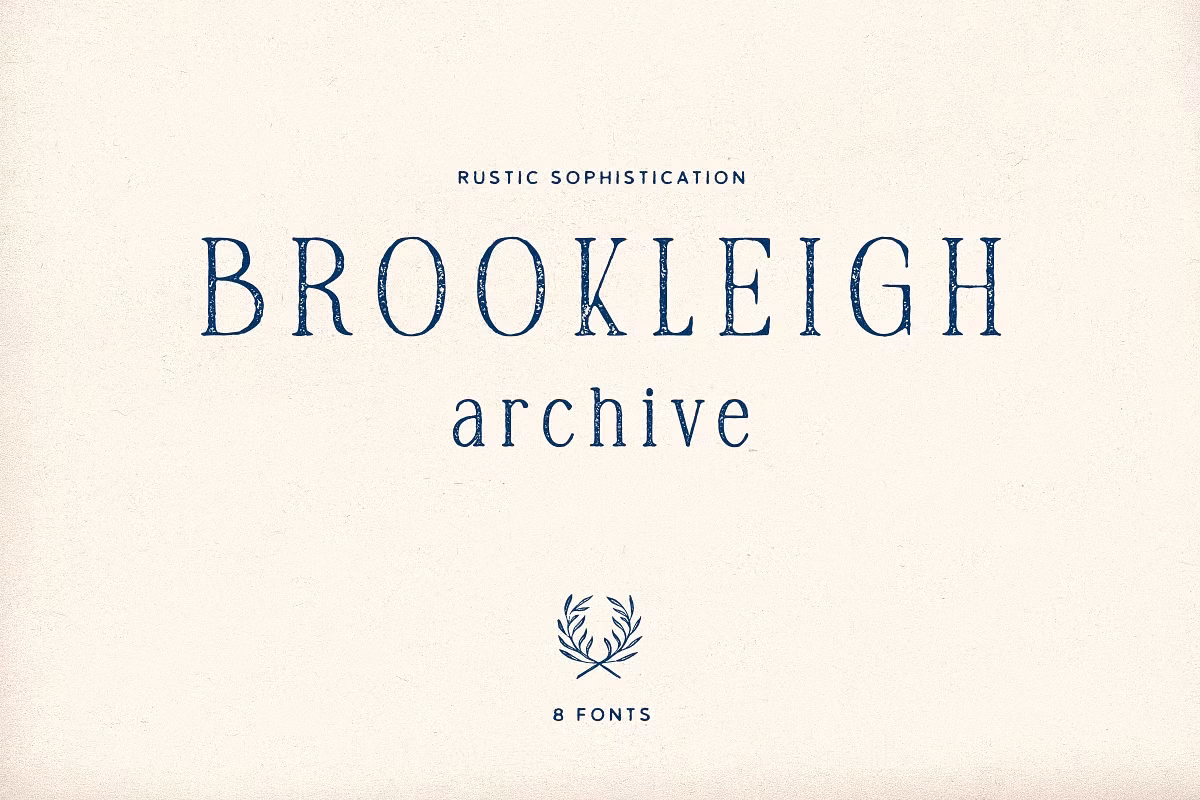
Brookleigh Archive: Rustic Font Pack Free Download
Brookleigh Archive: Rustic Font Pack Free Download is a versatile collection of rustic-inspired fonts designed to bring a touch of earthy charm and vintage flair to your designs. Featuring a mix of rugged serif fonts, bold display styles, and hand-drawn script fonts, this pack is perfect for branding, logos, posters, invitations, packaging, and any project that calls for a warm, authentic aesthetic.
The fonts in the Brookleigh Archive pack capture the essence of rustic, handcrafted typography, making them ideal for anything from outdoor brands to farm-to-table products. The mix of bold and delicate styles ensures you have the flexibility to create unique and impactful designs.